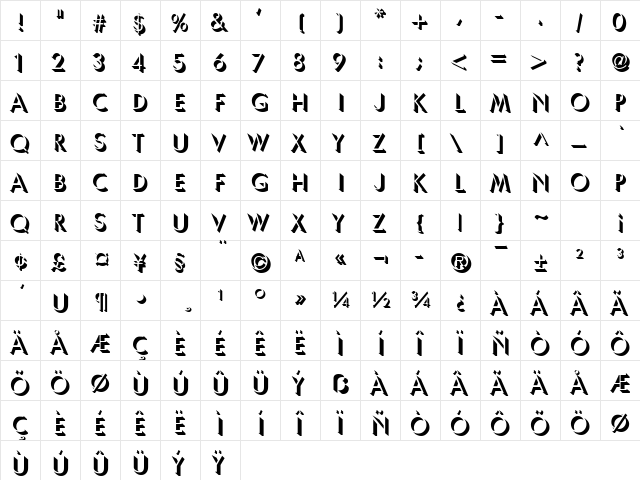
Umbles Regular
Design Context for Umbles Typeface
Umbles is a composed and adaptable typeface that performs quietly and consistently across a wide range of design contexts.